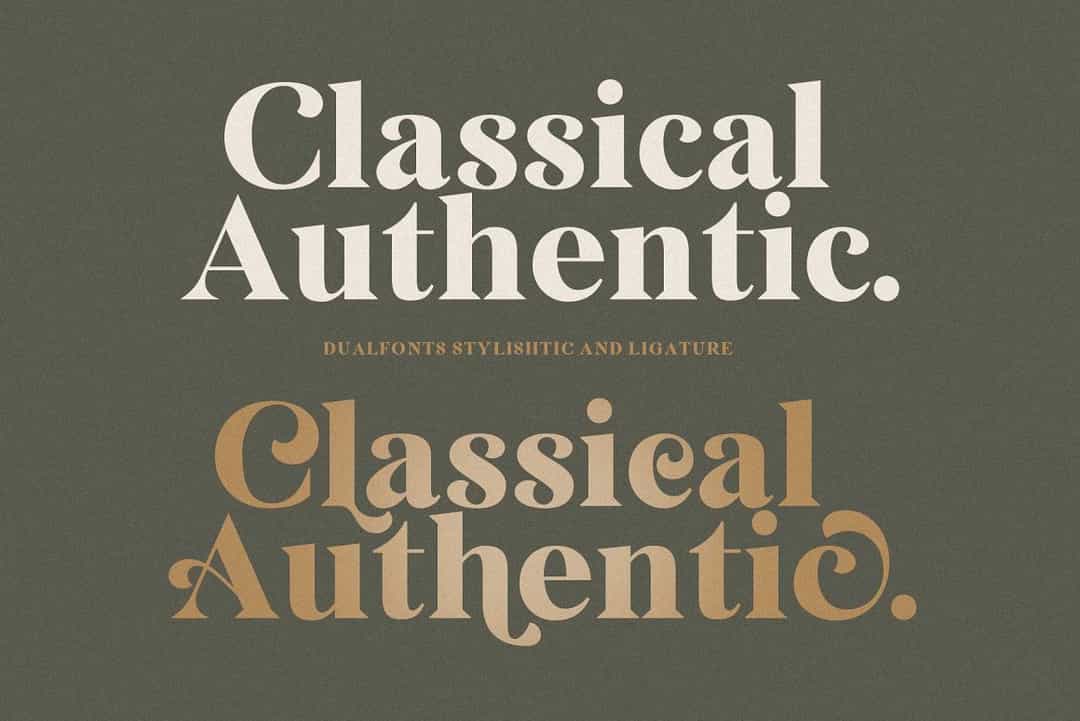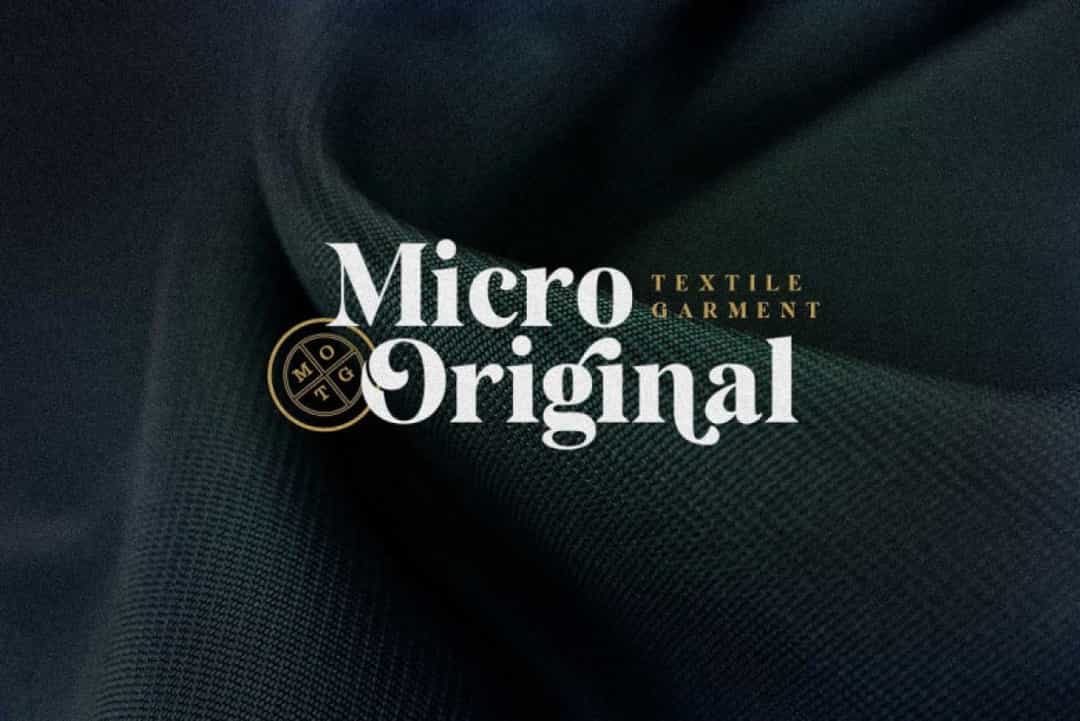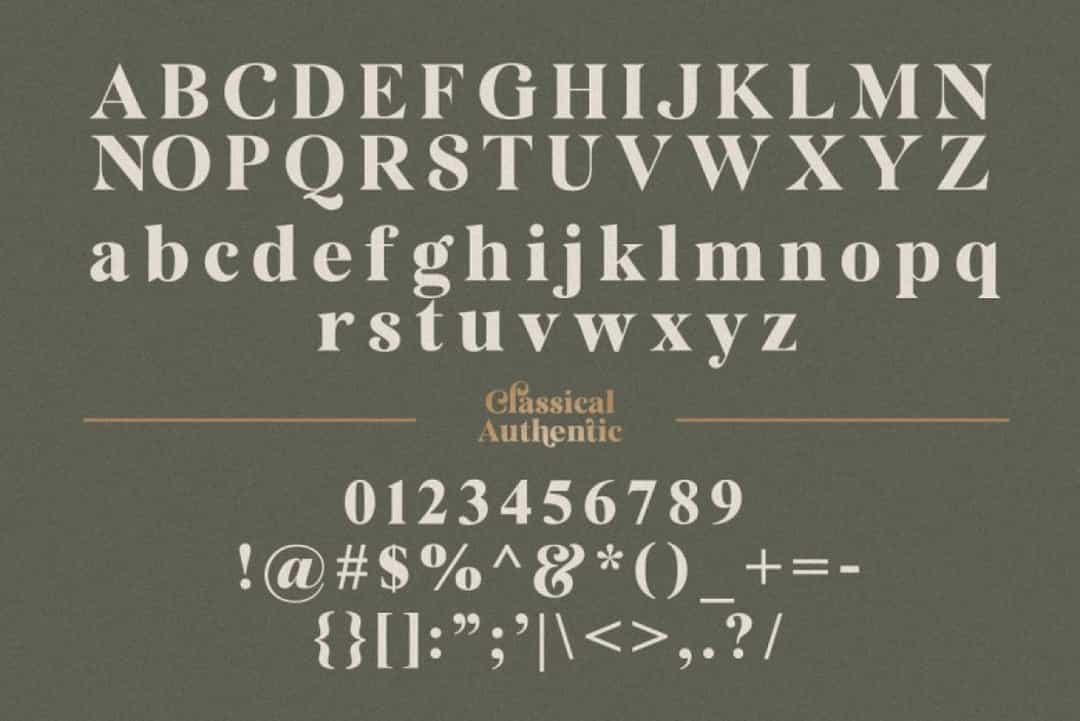
Our third item will be “Classical Authentic Serif Font.” This font offers classic style with timeless simplicity and elegant flair – ideal for posters, logos magazines or any creative endeavors! This font will surely add depth and dimension to your designs! It comes in handy and will certainly enhance your creative field!